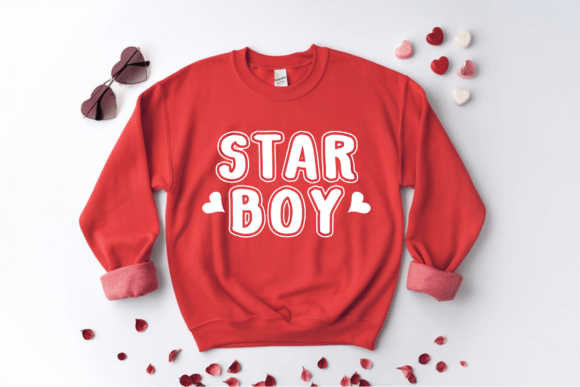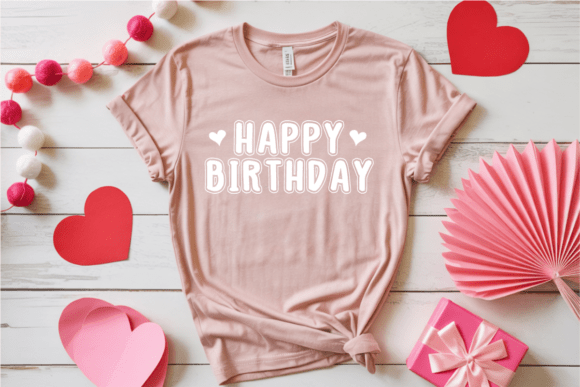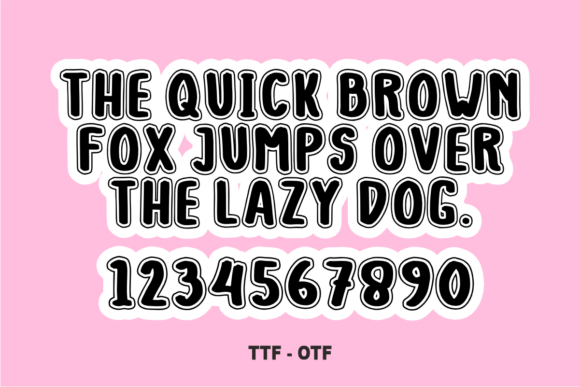
Introduction to Outline Vintage Font
Capture the spirit of the past with Outline Vintage, a groovy display font that delivers a powerful hit of 70s nostalgia.
This bold typeface features chunky, rounded letterforms accented by a stylish, contrasting outline The layered effect creates depth and a signature retro vibe, making the text jump off the page with a friendly, energetic enthusiasm.
Key Features of Outline Vintage Font
Why Choose Outline Vintage Font?